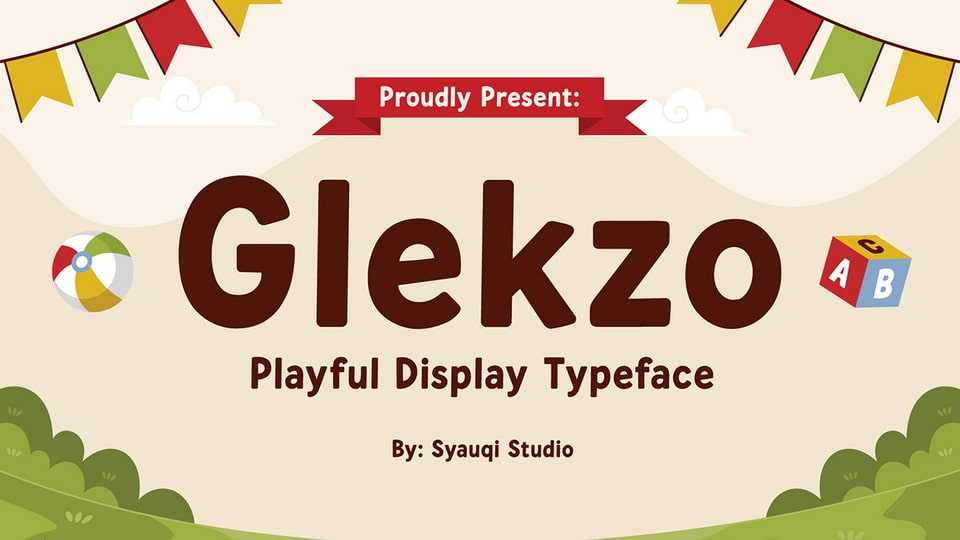
Download Glekzo font, a playful display typeface designed to add energy, personality, and fun to your designs. With bold curves, unique shapes, and a friendly rhythm, Glekzo creates a cheerful and eye-catching look.
Designer: Syauqi Studio